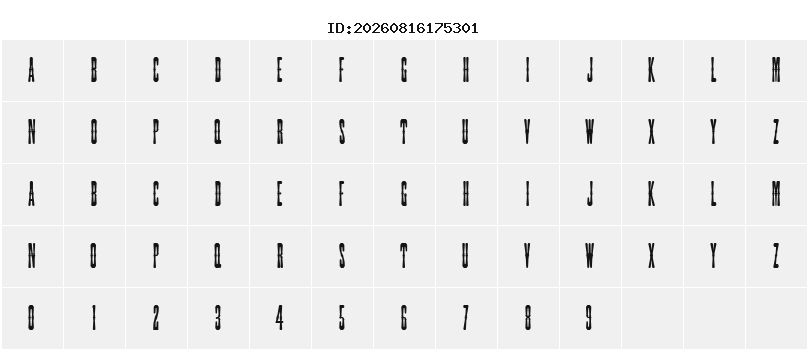
Spindletop Wbw Preview
• Font Name: Spindletop Wbw
• Full Font Name: Spindletop Wbw
About Spindletop Wbw.ttf
Spindletop Wbw.ttf is a modern, elegant sans-serif font designed for ultimate readability and visual harmony. Perfect for branding, headlines, web design, and print materials.